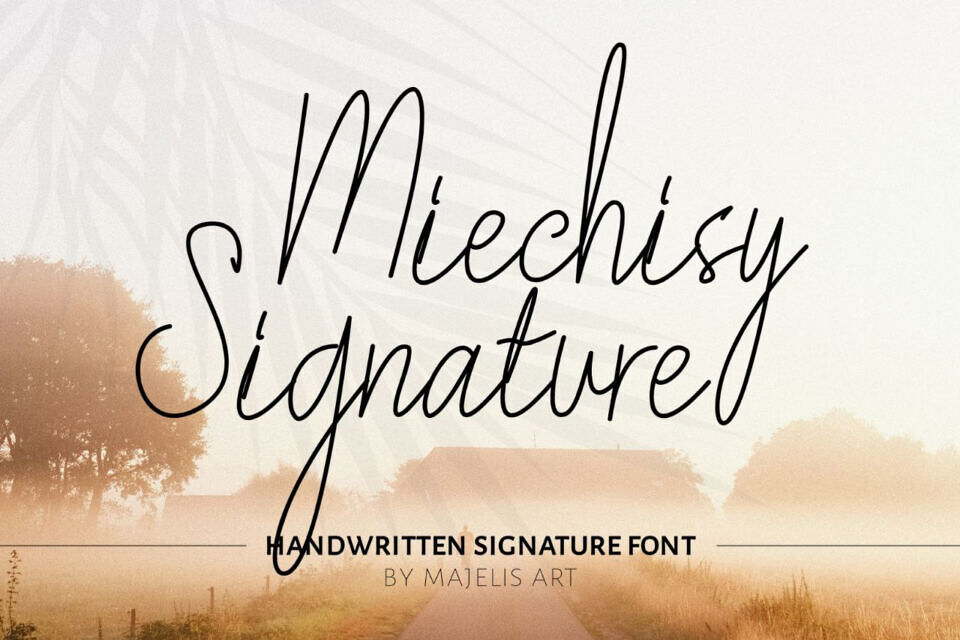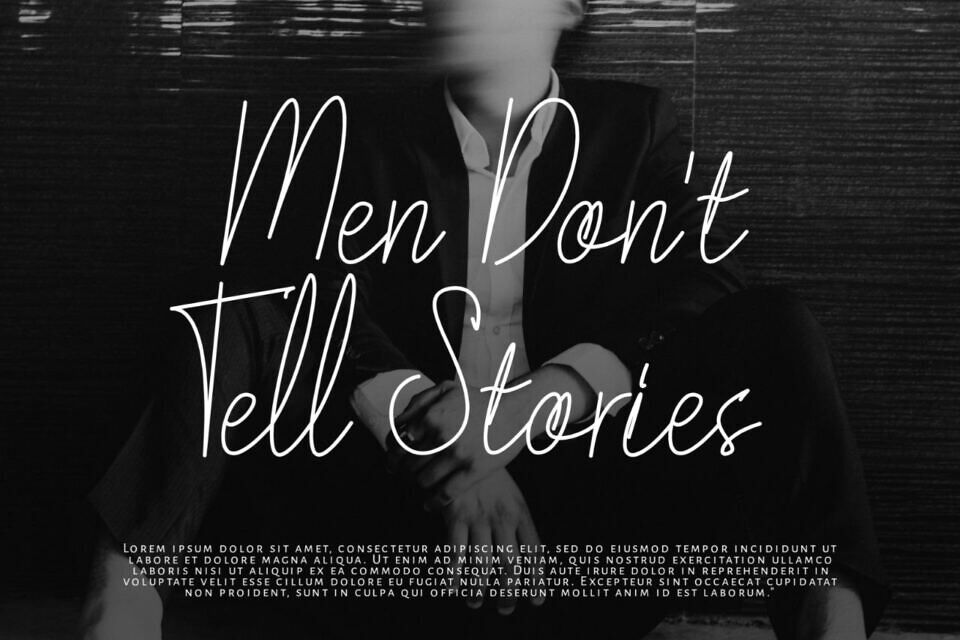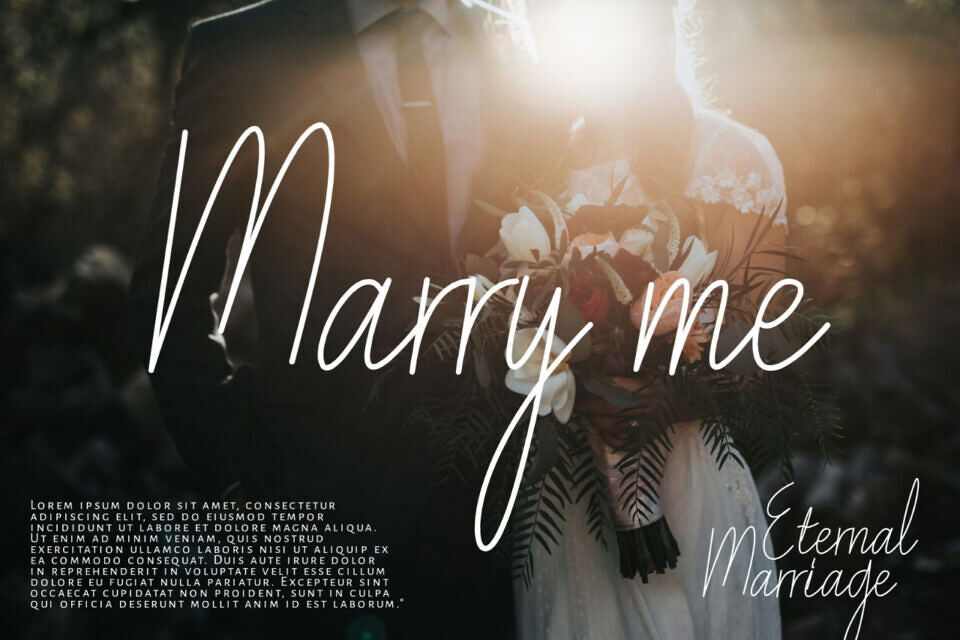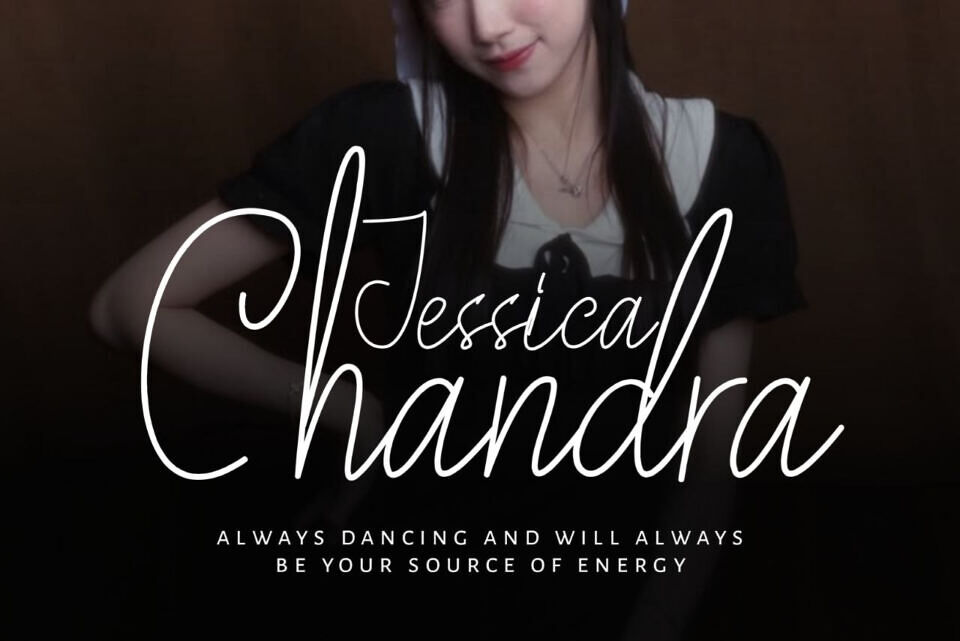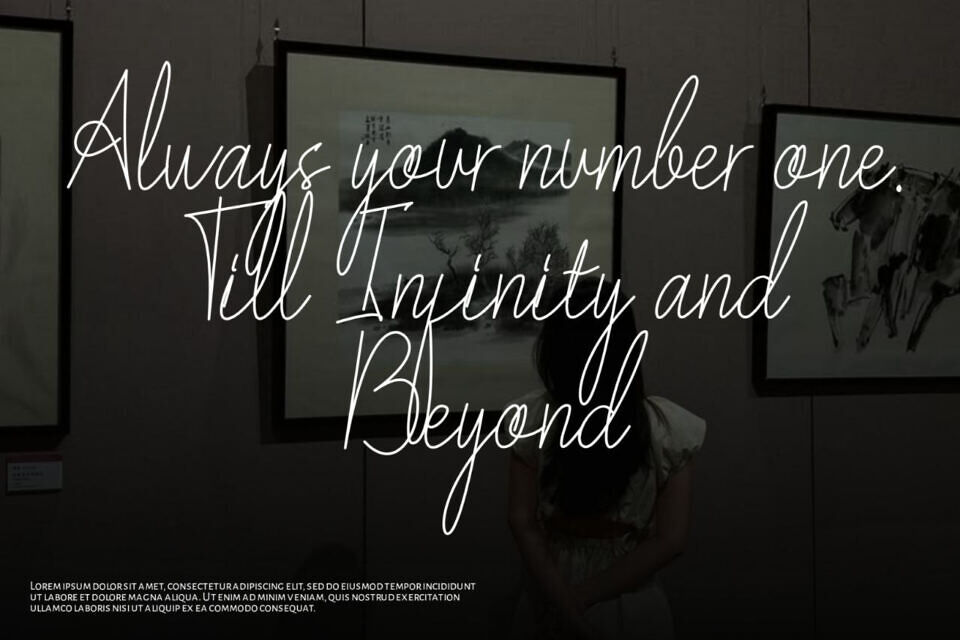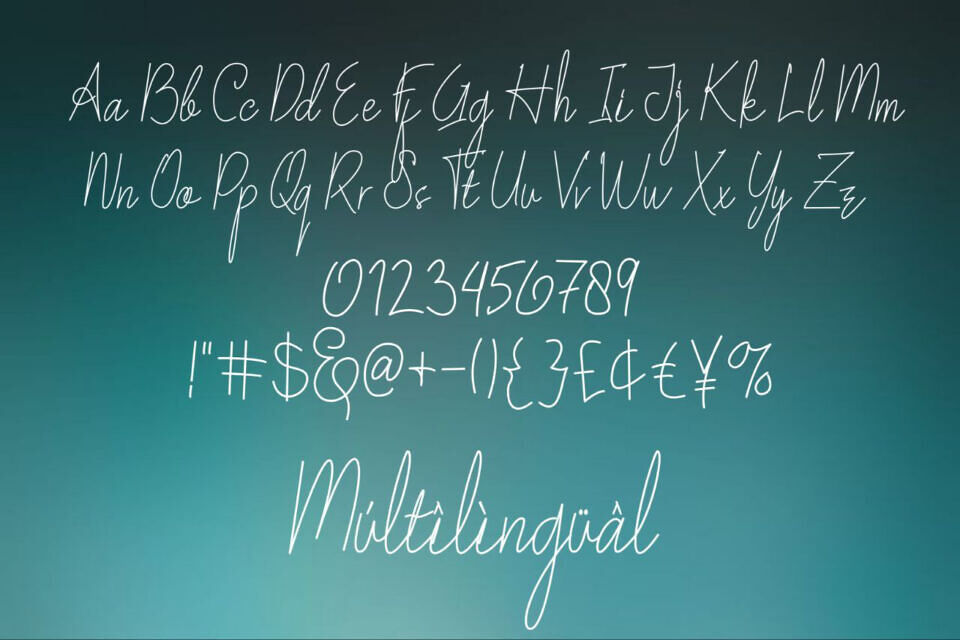
Miechisy is a font with unique and elegant ink curves, designed to mimic beautiful handwriting with graceful, eye-catching strokes. Its balanced letterforms and smooth flow make it a versatile choice for various creative projects.
Miechisy is ideal for:
- Branding and logo design
- Wedding invitations and stationery
- Social media graphics
- Advertisements and product packaging
- Labels and photography watermarks
- Any project that requires a handwritten, elegant touch